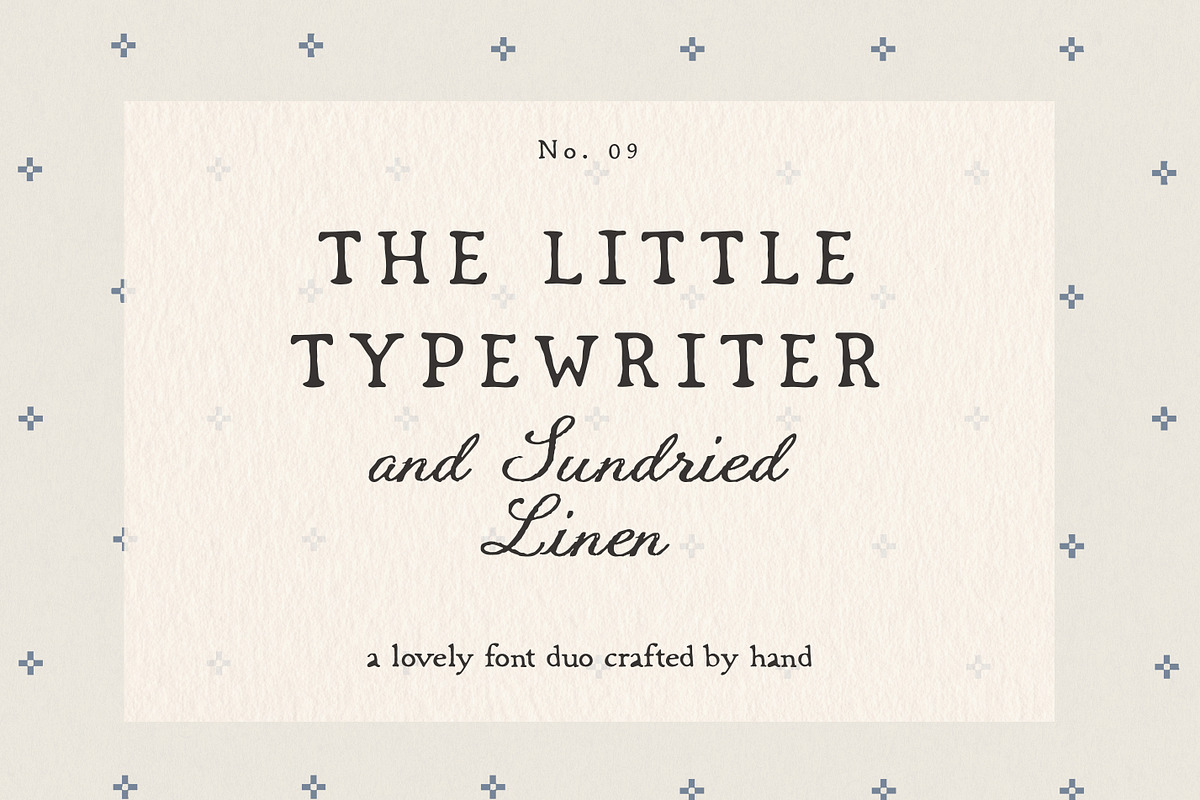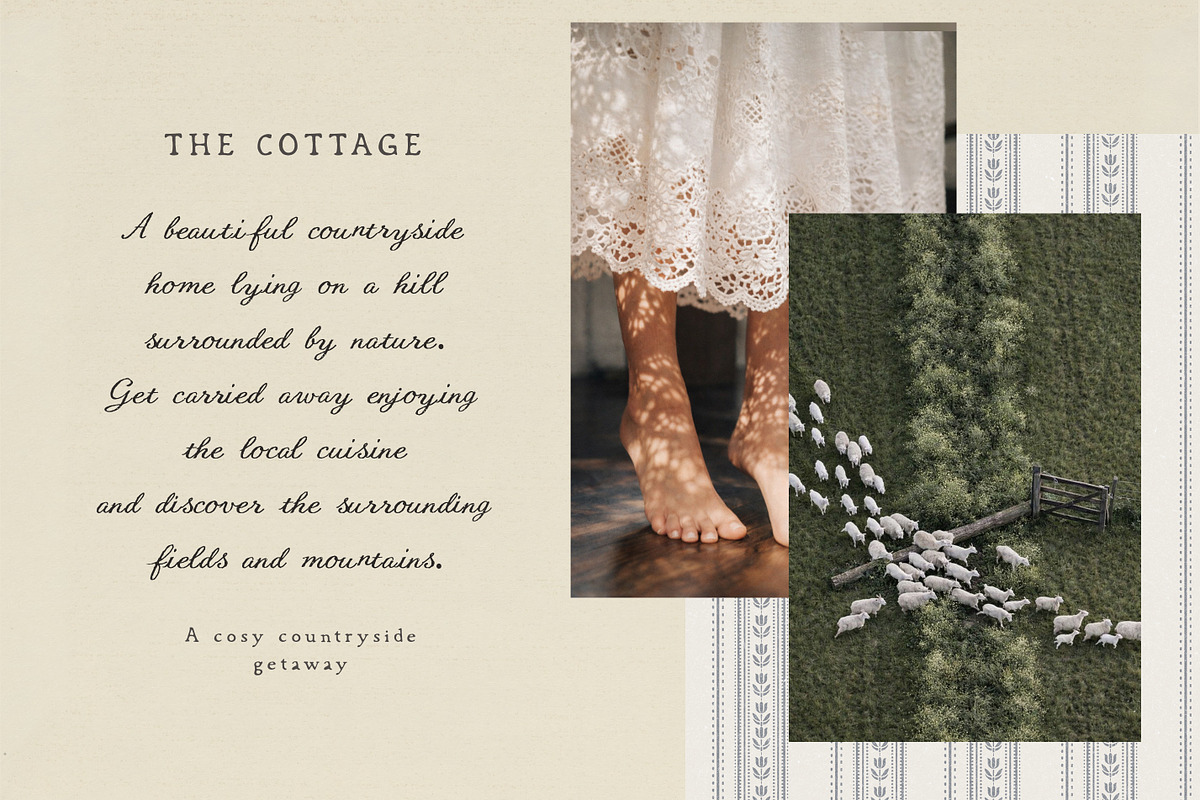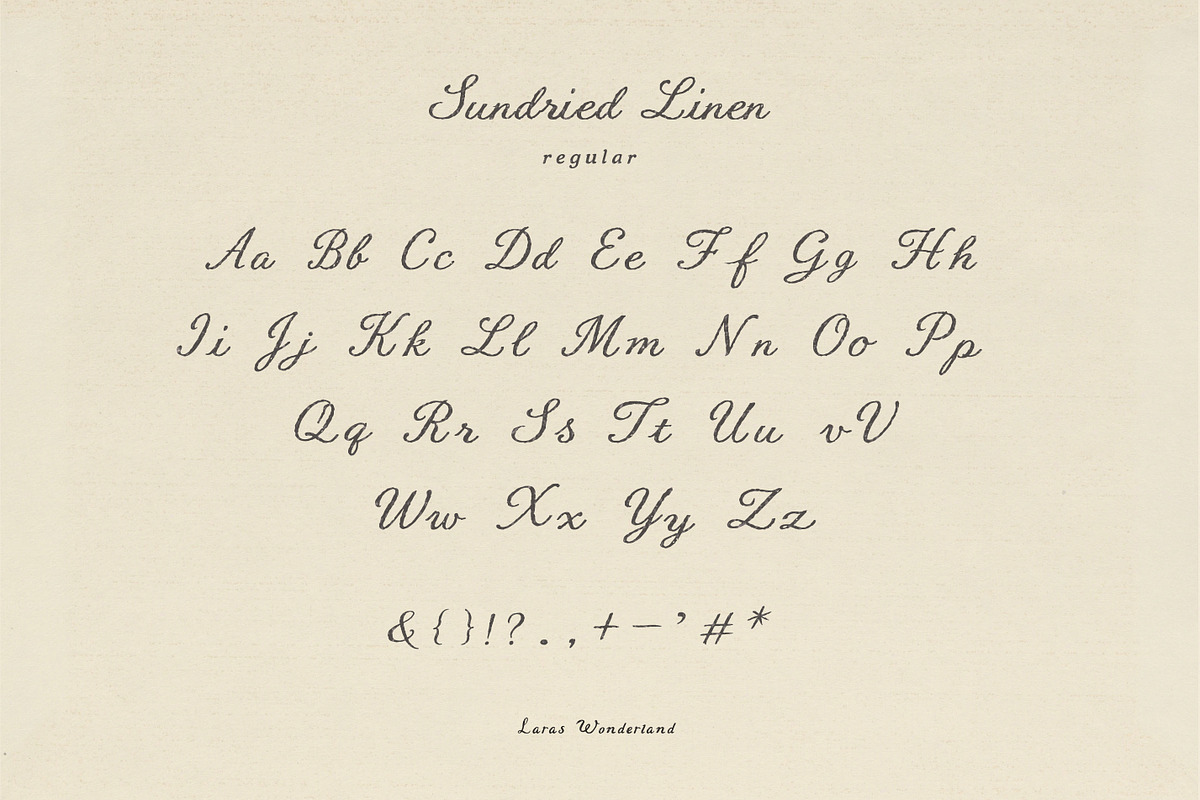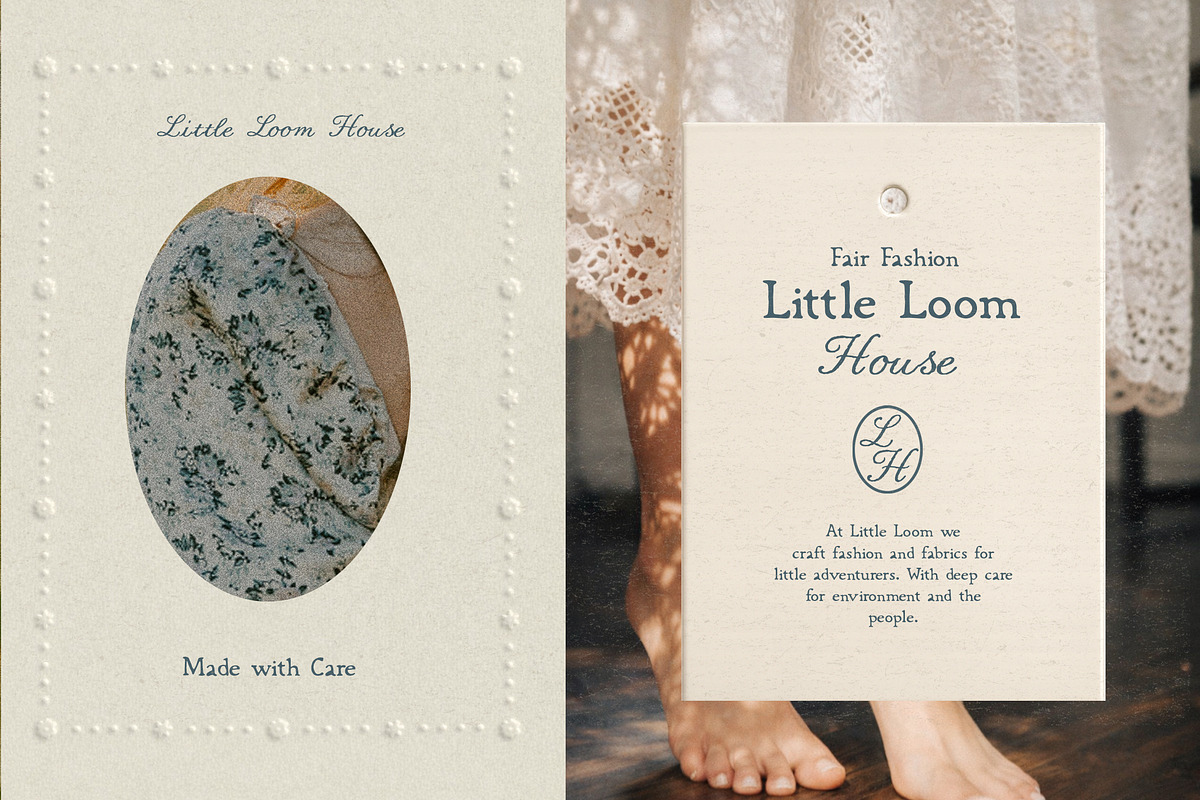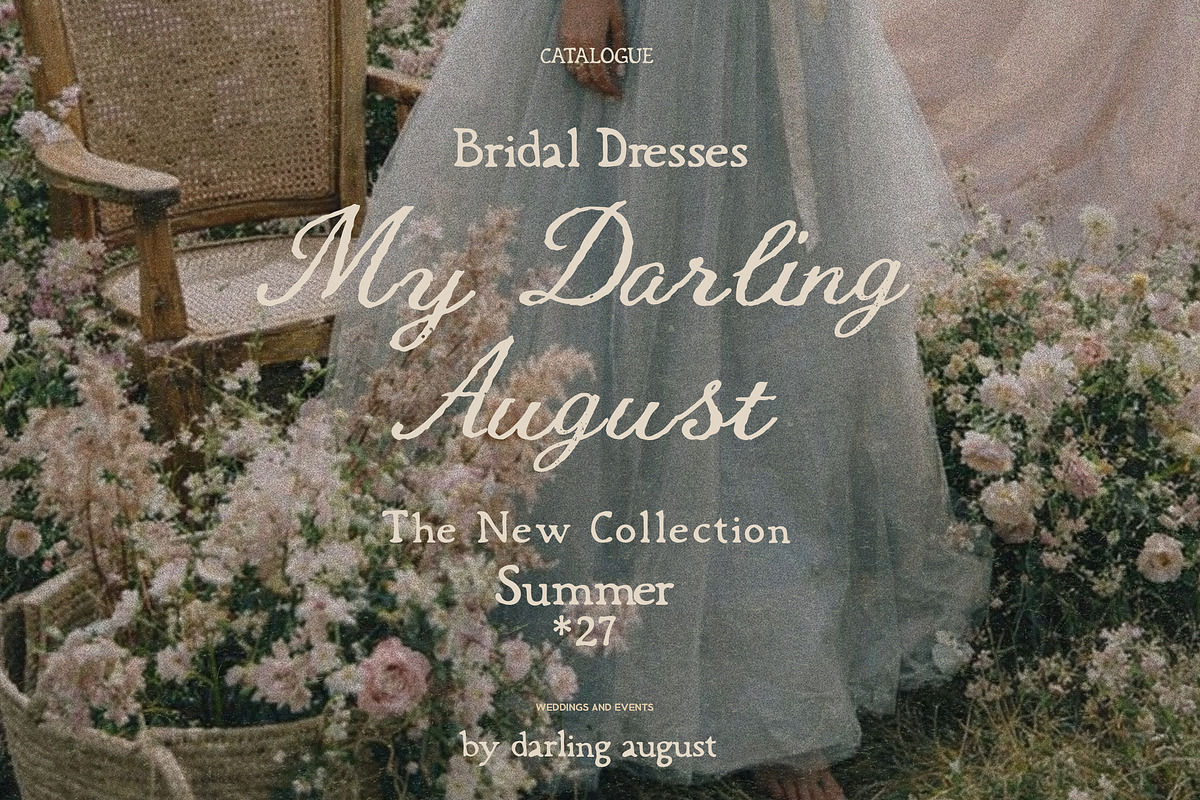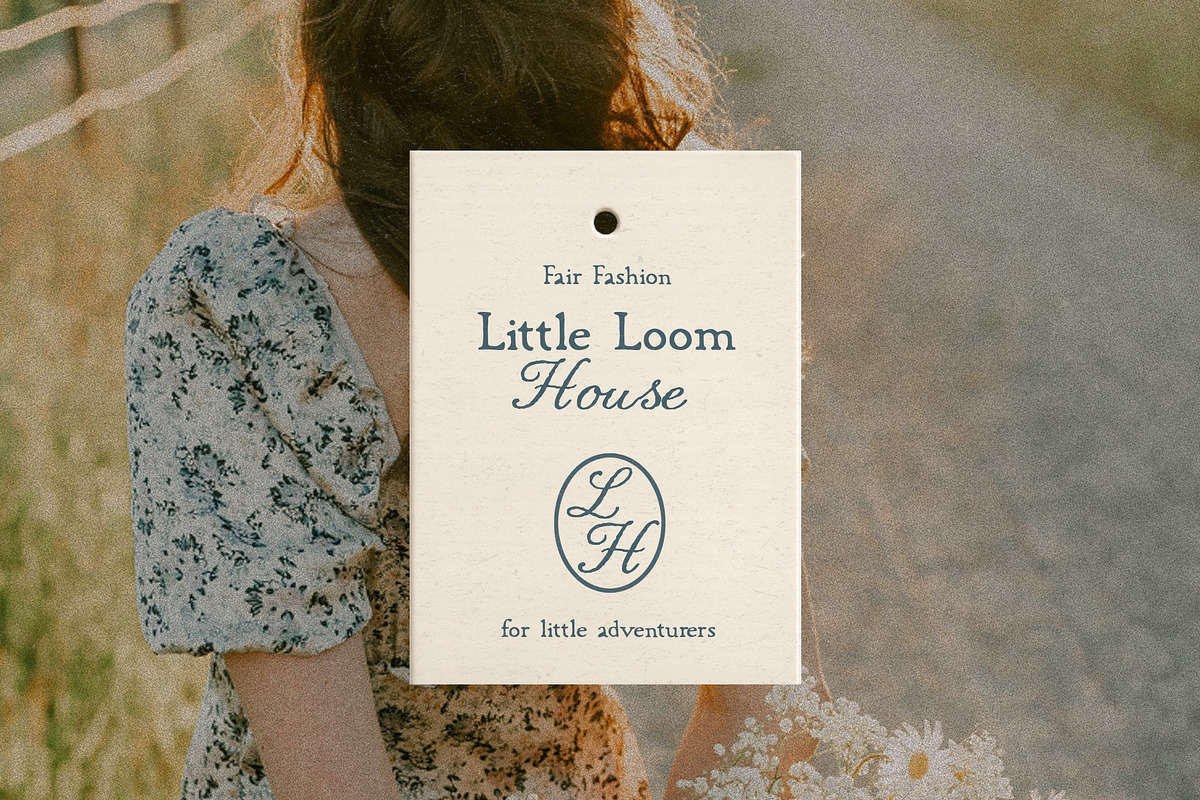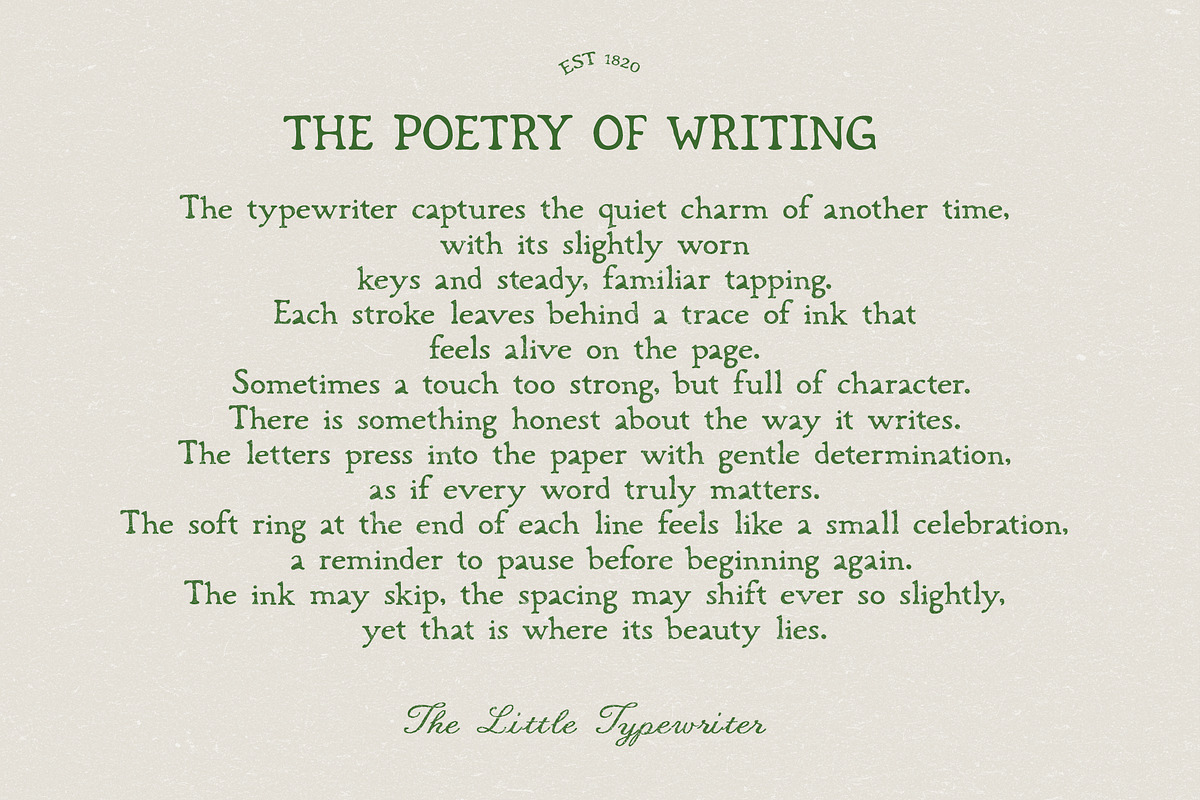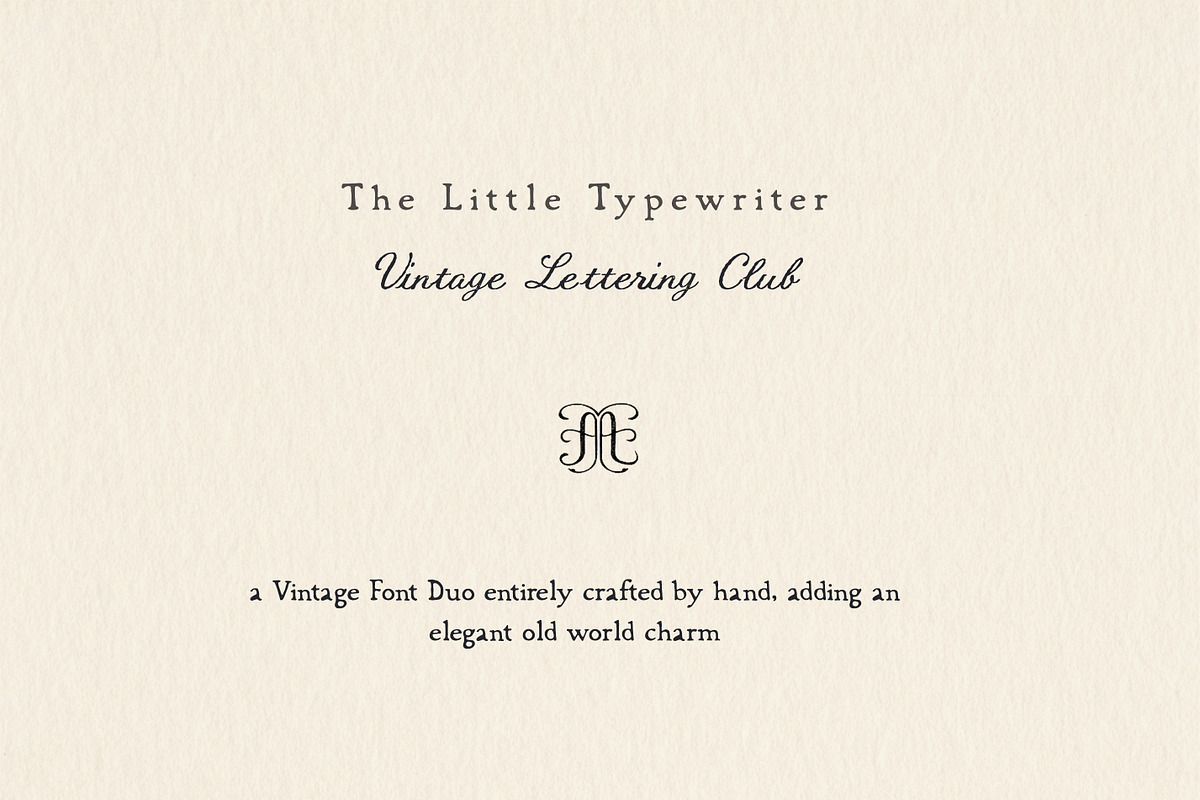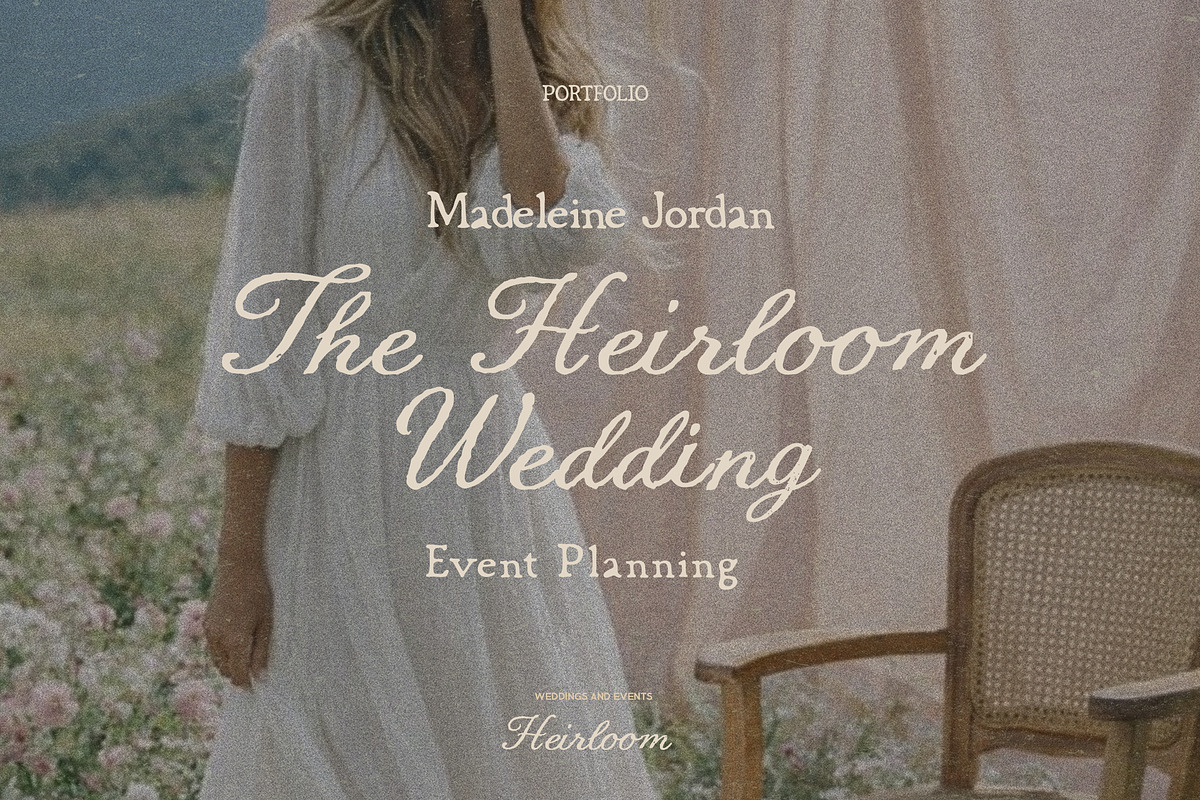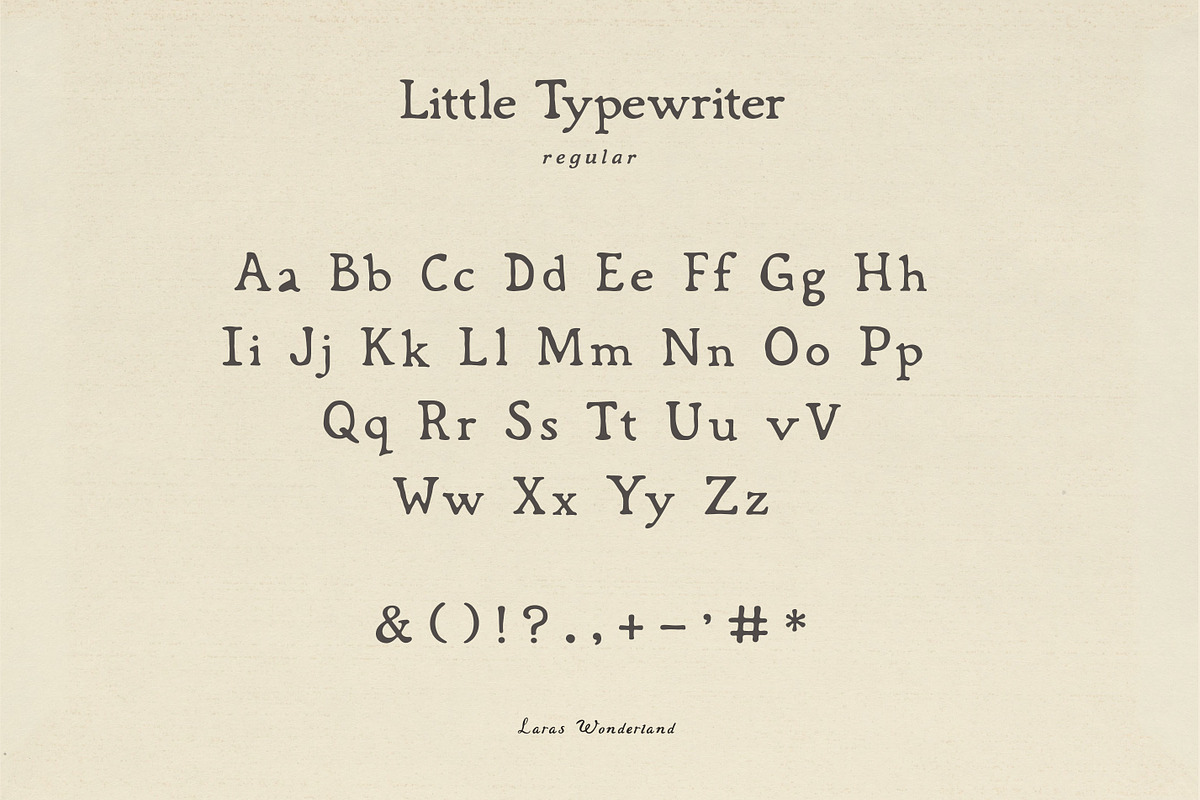
Handmade Typewriter & Rustic Script
The new season arrives with a thoughtfully refined font duo. This carefully matched typewriter serif and rustic script pairing captures the authenticity of vintage cottage charm, bringing warmth, texture, and character to every design.
The structured, ink-pressed serif echoes the steady rhythm of an old typewriter, while the imperfect script adds handcrafted countryside charm. Together, they create a balance of nostalgia and ease.
Little Typewriter features a subtle muddy ink effect inspired by authentic vintage machines, with uneven ribbon pressure and subtle ink bleed for a distressed overprint look. The script carries a subtle rope-like texture, reminiscent of woven fabric and raw linen fibers.
Perfect for branding, packaging, editorial layouts, wedding stationery, and heartfelt storytelling, this duo adds depth without feeling forced. Every letter carries subtle irregularities that feel intentional, giving your work a lived-in, tactile quality.